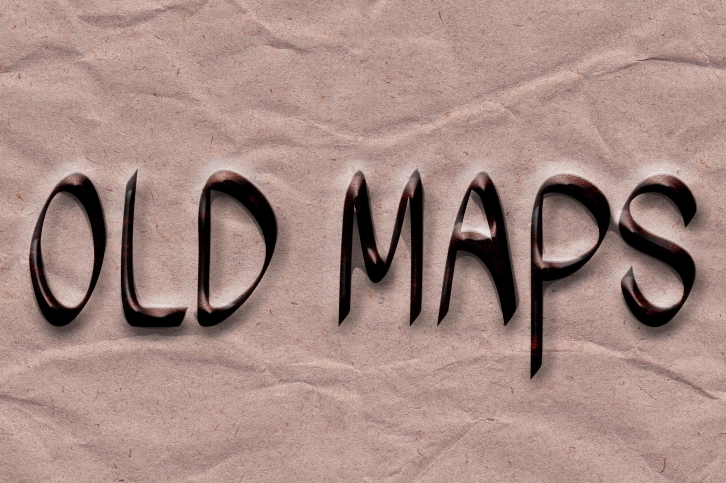
Old Maps is a simple and adaptable handwritten font. No matter the topic, this font will be an incredibly asset to your fonts’ library, as it has the potential to elevate any creation.Â